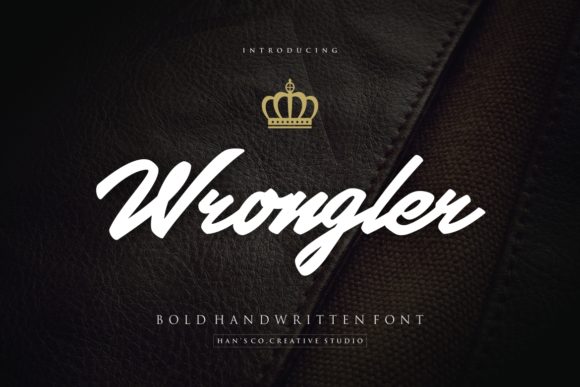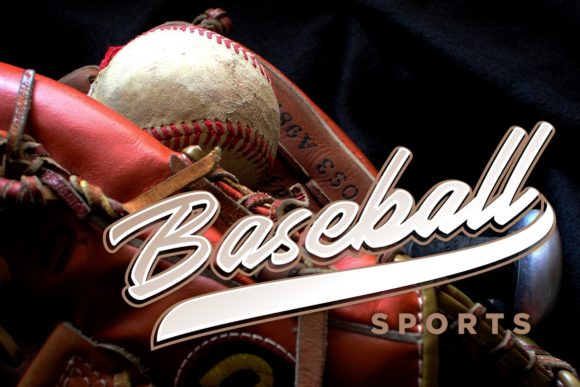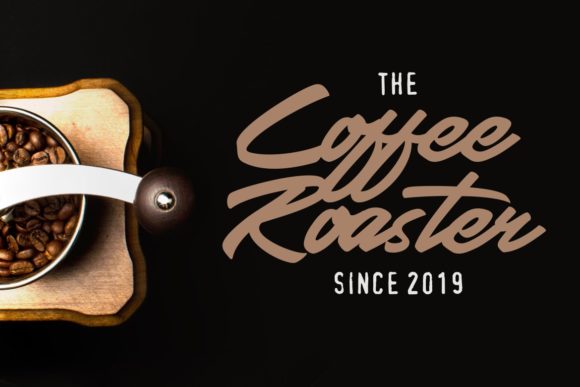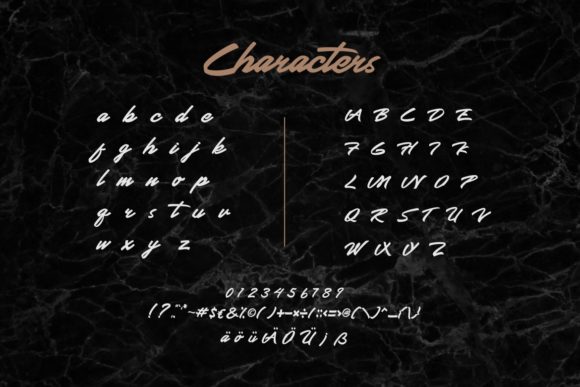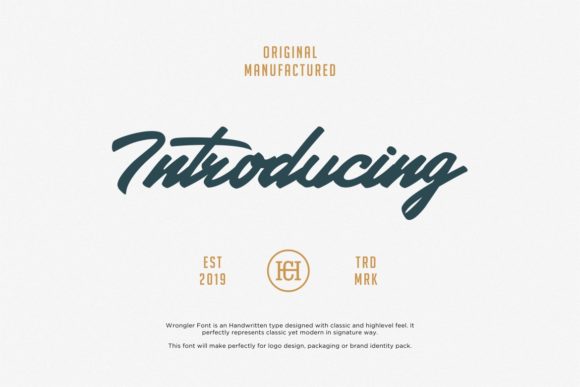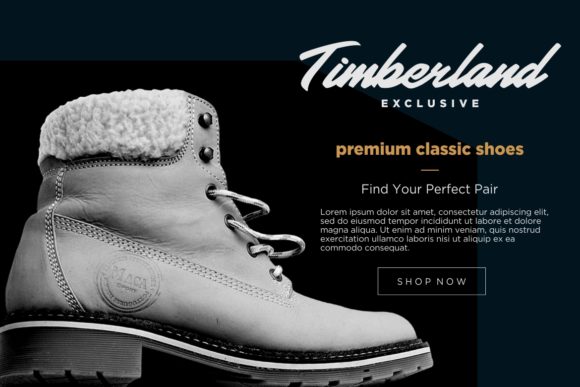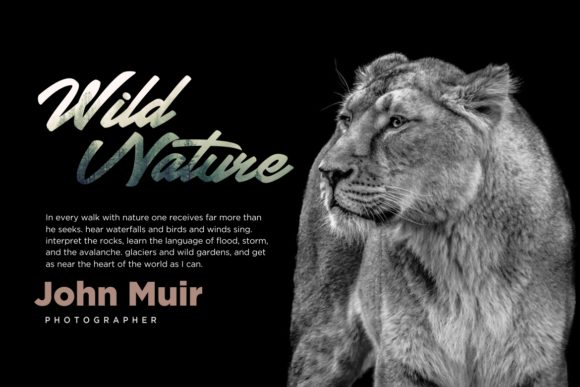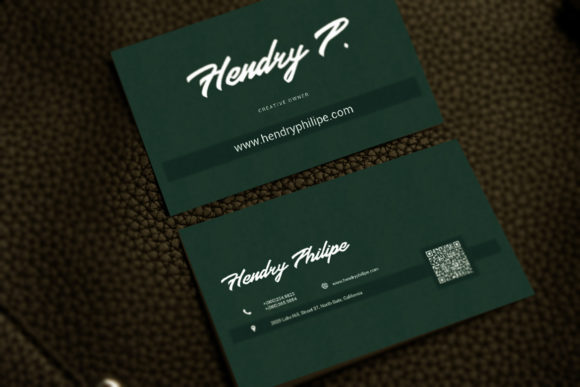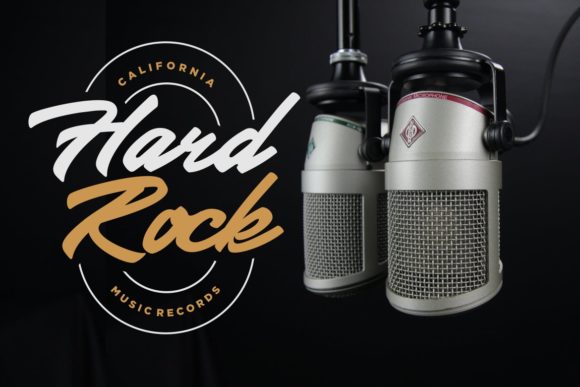
Wrongler Font
About Wrongler Font
Wrongler is a cute and fun handwritten font with an adventurous feel. It will turn any design project into an inspiring piece of art!